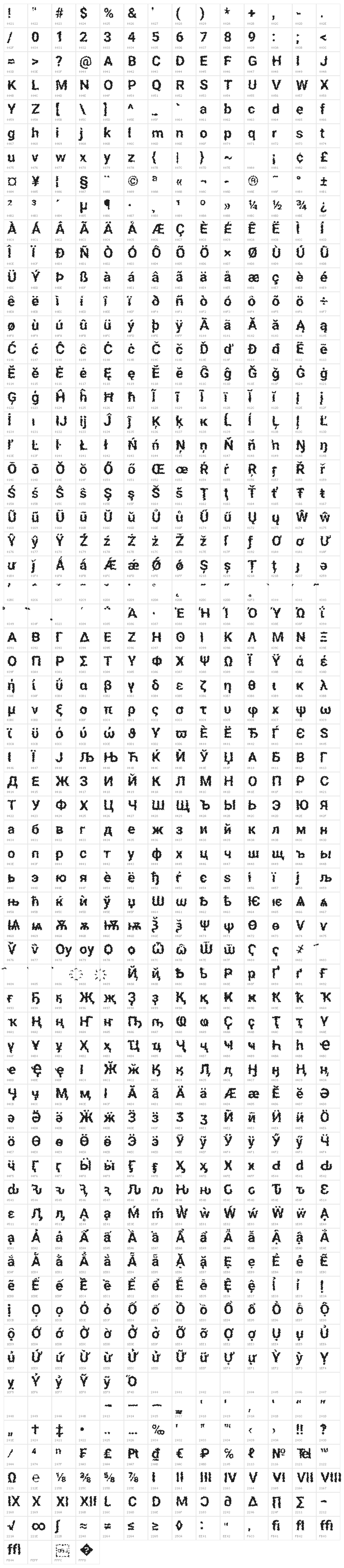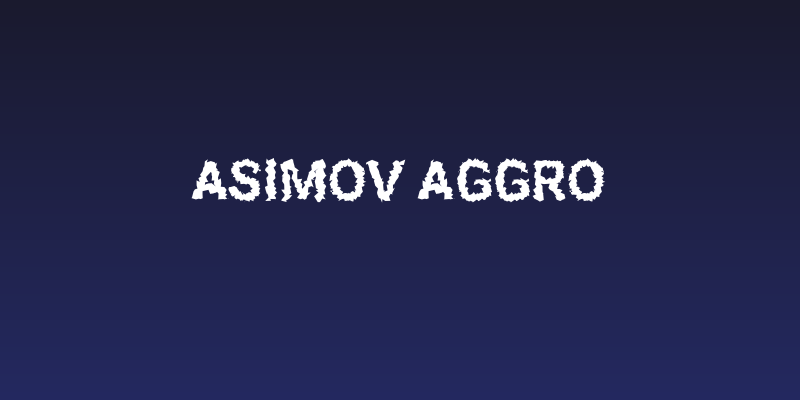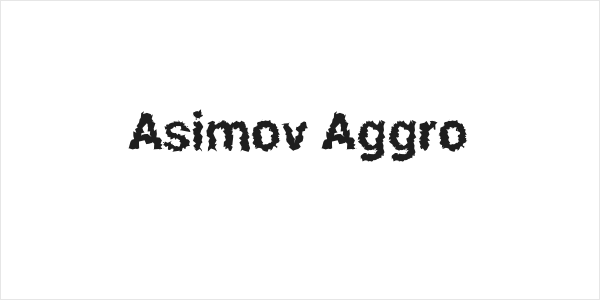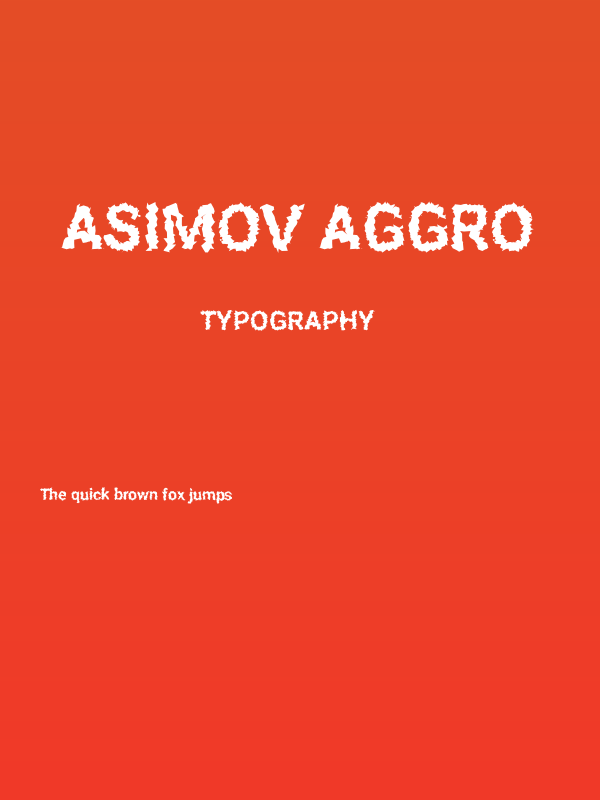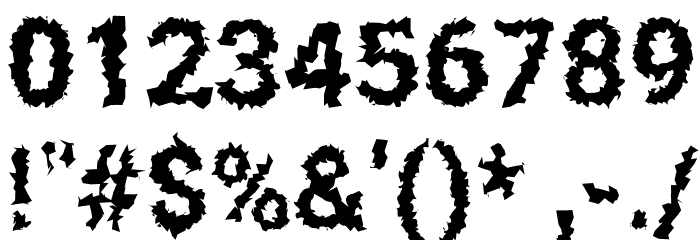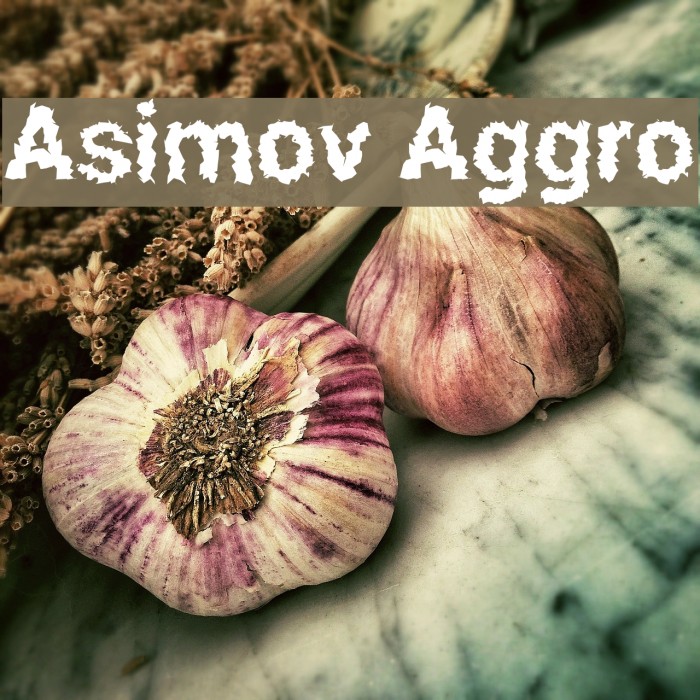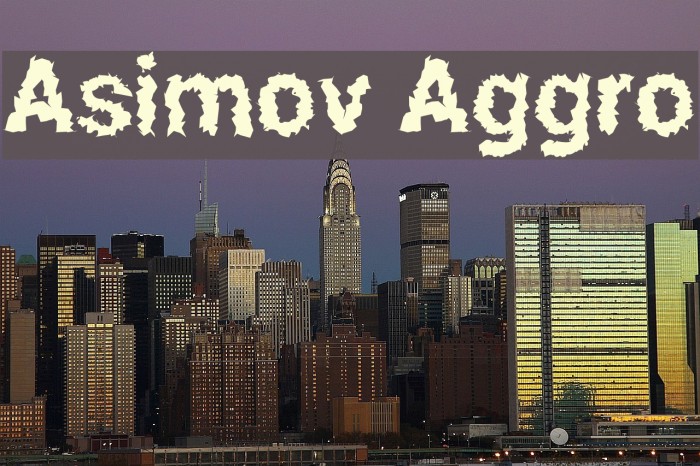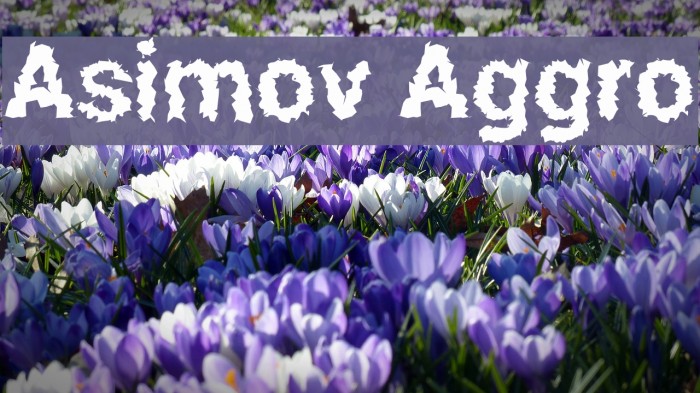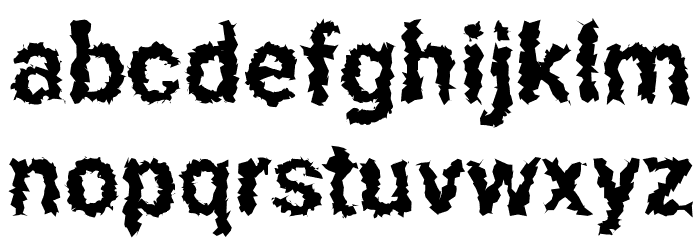
Asimov Aggro Font
Asimov Aggro Description
This font features a bold and aggressive design, with jagged, thorn-like edges that give it a rugged and intense appearance. The characters are heavily stylized, creating a sense of movement and energy. Each letter is distinct, with sharp angles and irregular shapes that make it stand out. The font's unique style is reminiscent of a chaotic, natural force, making it ideal for projects that require a strong visual impact. Its boldness ensures readability while maintaining an edgy aesthetic.
| Use Case | Logos, Headlines, Posters |
| Proposed Projects | Ideal for music album covers, extreme sports branding, horror movie posters, and edgy graphic design projects. |